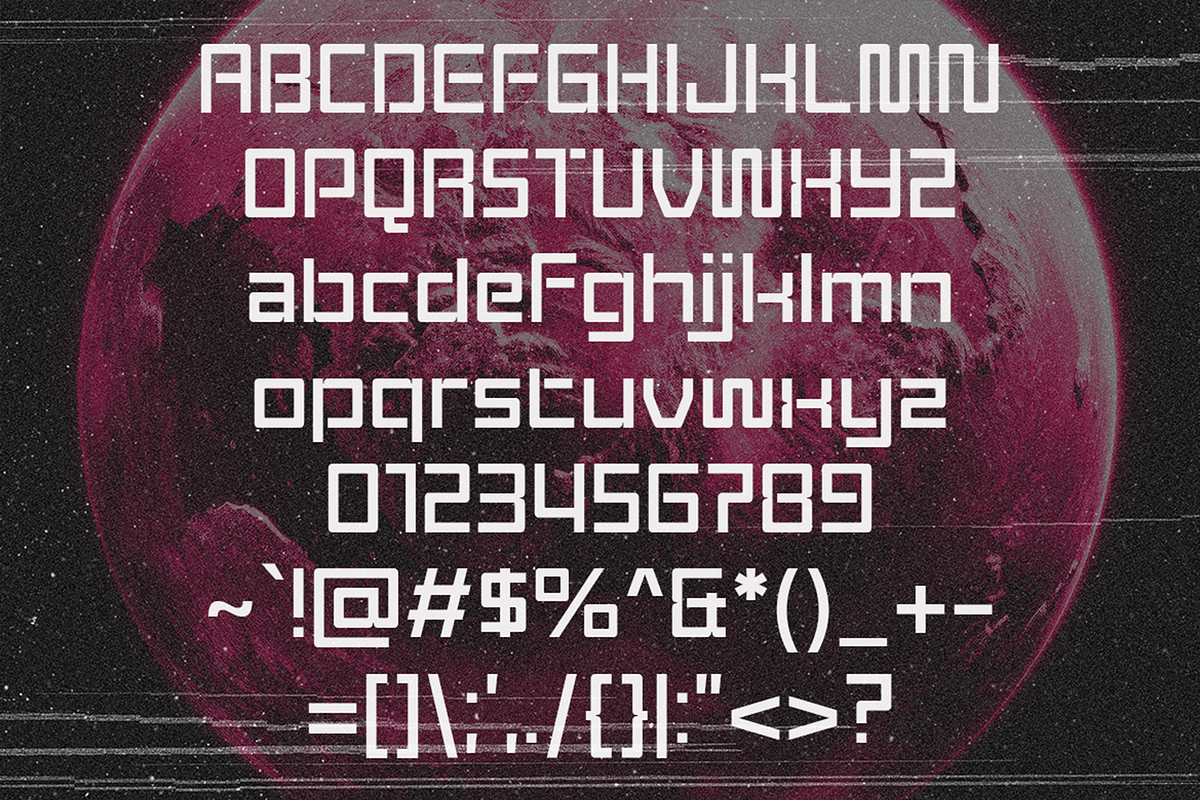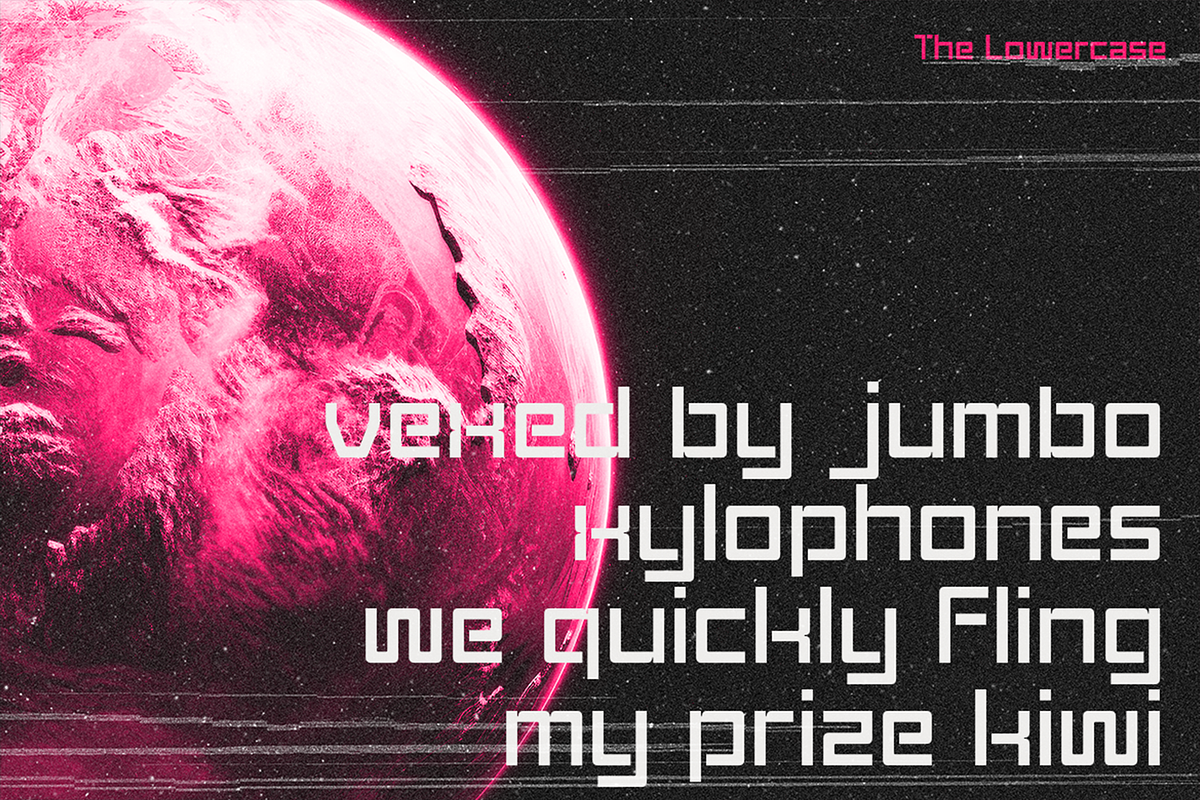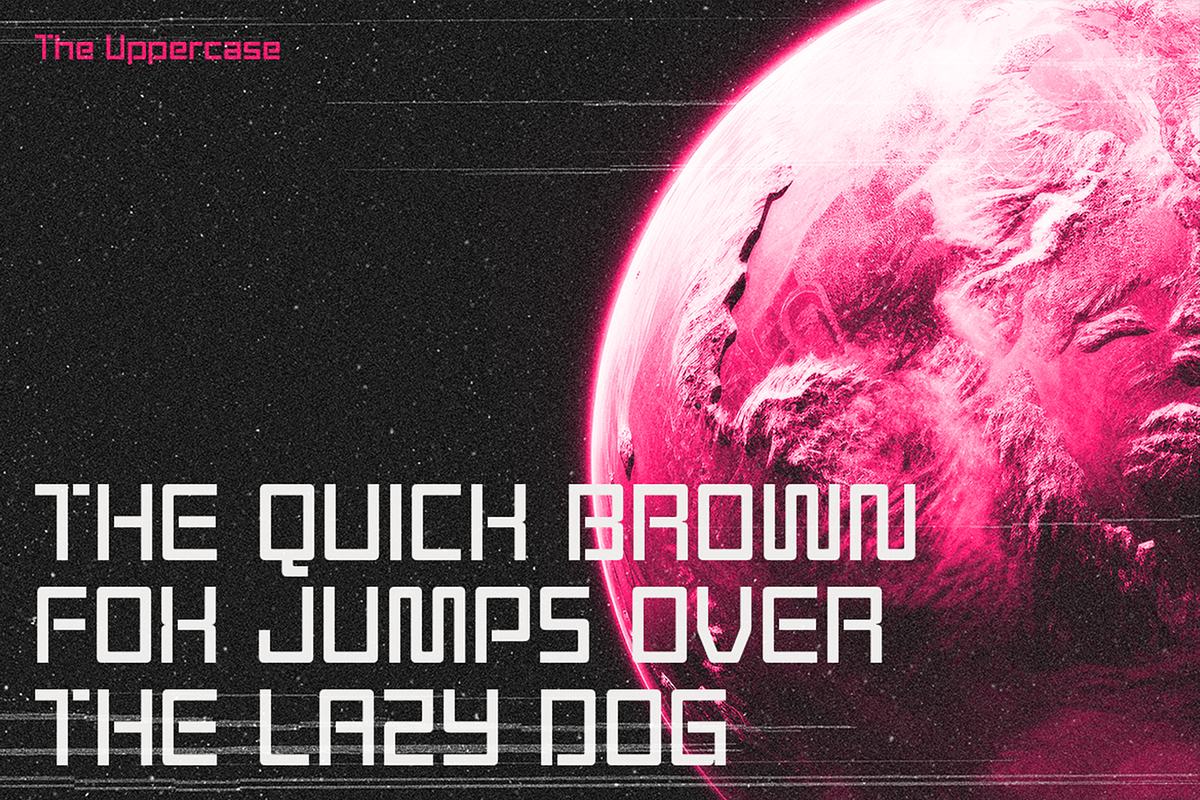
Nutgrade - Futuristic Techno Fonts
Decode the Future of Typography
Nutgrade is more than just a font—it's an interface to tomorrow.
Inspired by digital readouts, glitchy screens, and high-tech UI from the cyber frontier, Nutgrade brings that sleek, synthetic vibe straight into your design universe. With its sharp angles, techno rhythm, and futuristic logic, this typeface was built for creators who don’t just follow trends—they set them.
Perfect for sci-fi posters, music visuals, gaming UIs, streaming overlays, or any project that needs to radiate tech-core aesthetics.
System Ready. Visuals Optimized. The future just got typographic.